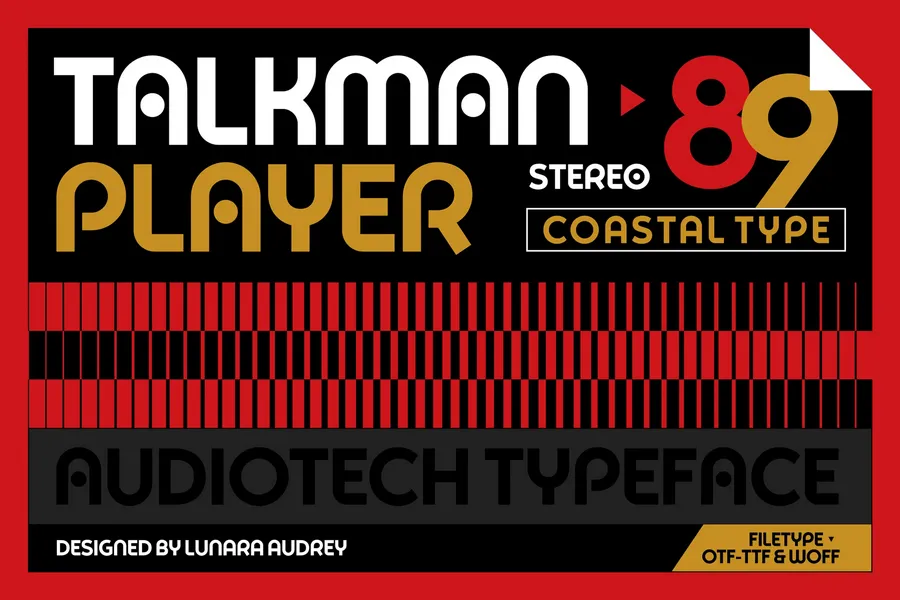
Talkman Player
Talkman Typeface: Retro Pulse, Geometric Soul
Talkman is a geometric sans-serif typeface inspired by the iconic Walkman logotype, cleverly reimagined with a playful twist. Blending Bauhaus principles of functional, stripped-down form with the clean, circular rhythm of Burko Circle influences, Talkman projects both nostalgic energy and modern clarity.
With its sharp precision, perfect geometric curves, and balanced proportions, Talkman embodies a sense of movement and sonic dynamism — just like the vintage cassette players that sparked its name. Ideal for bold headlines, logos, or posters celebrating audio culture, this typeface feels at once retro and refreshingly futuristic.
Plug in. Play loud. Let Talkman speak.